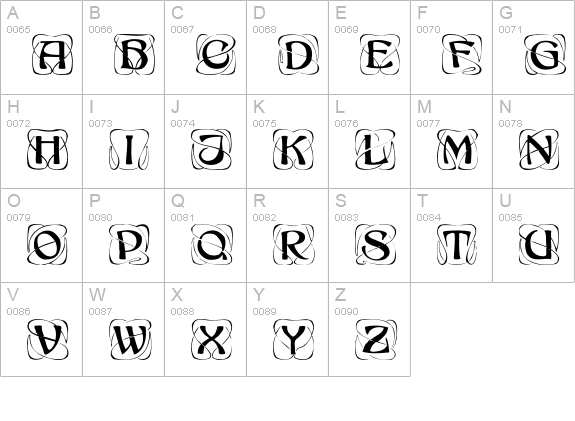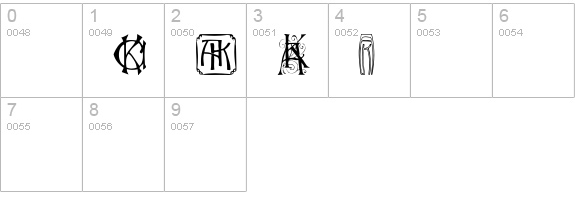
Konanur-Caps Font Details
Konanur-Caps font is a stylish and versatile typeface that exudes elegance and sophistication. Its unique combination of sharp edges and smooth curves gives it a modern yet timeless appeal. Perfect for adding a touch of class to any design project, from logos to invitations to branding materials. What sets Konanur-Caps font apart is not just its aesthetics, but also its accessibility. This premium font is available for free download at FontsMarket.com, making it a valuable addition to any designer's toolkit without breaking the bank. Whether you're a seasoned professional or a hobbyist looking to elevate your projects, Konanur-Caps font is sure to impress with its sleek and polished look. Don't miss out on this opportunity to enhance your designs with Konanur-Caps font. Download it for free today at FontsMarket.com and take your creations to the next level.